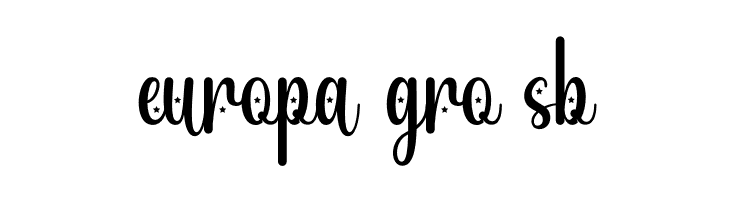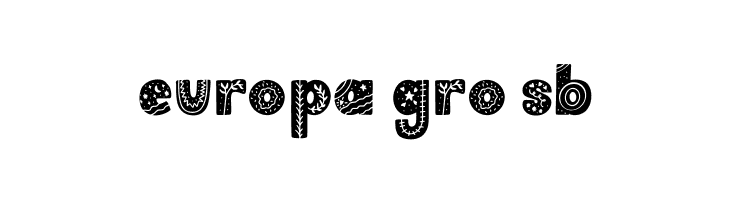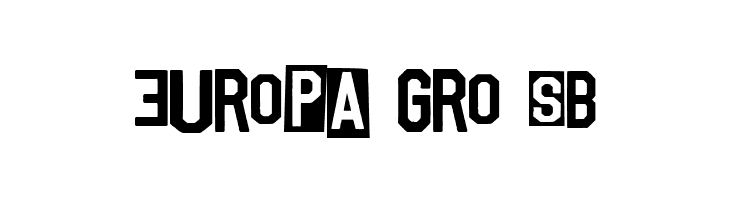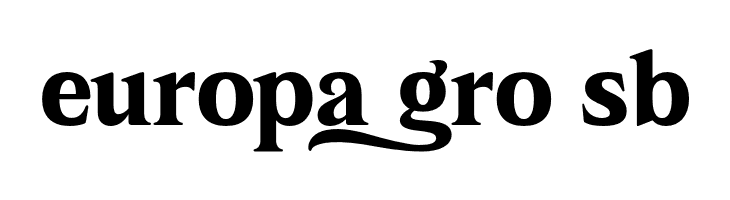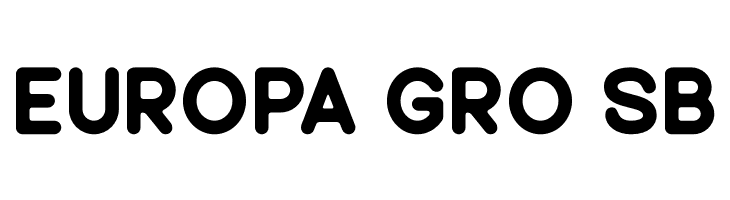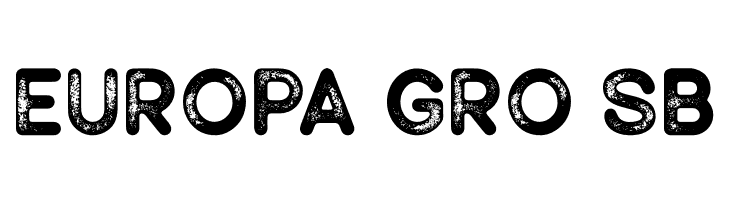
A playful, bold font with rounded, whimsical characters.
A whimsical script font with star embellishments and flowing, playful letters.
A playful, star-adorned font with bold, rounded characters.
A decorative font with bold, patterned letters and whimsical designs.
A bold, edgy font with irregular, blocky letterforms and a rebellious style.
An elegant, decorative font with ornate swashes and flourishes.
A bold, rounded font with a modern and friendly appearance.
A bold, distressed font with a vintage, textured appearance.
A bold, geometric font with angular strokes and a striking appearance.
A playful, outlined font with bold, rounded characters perfect for creative projects.